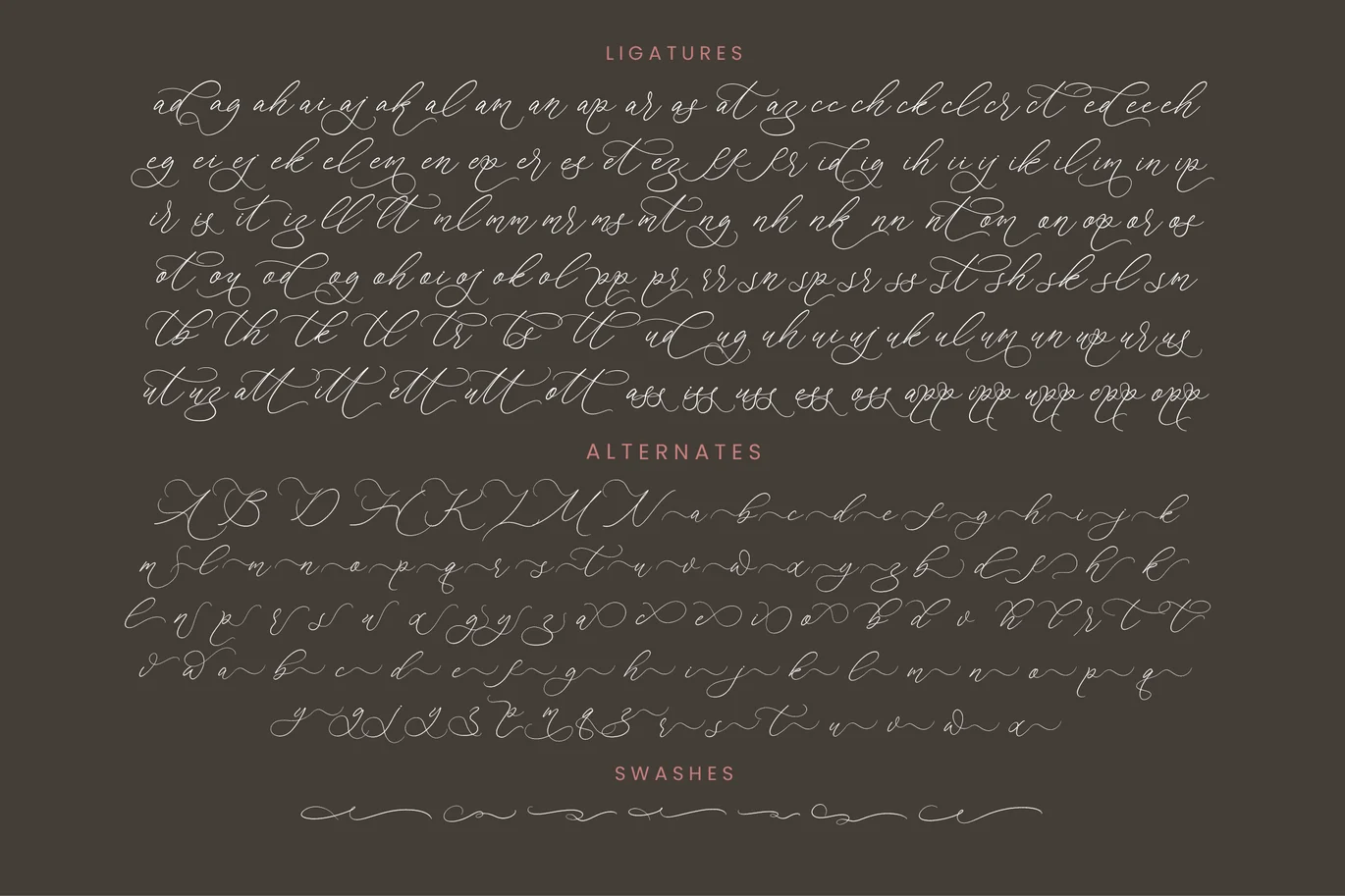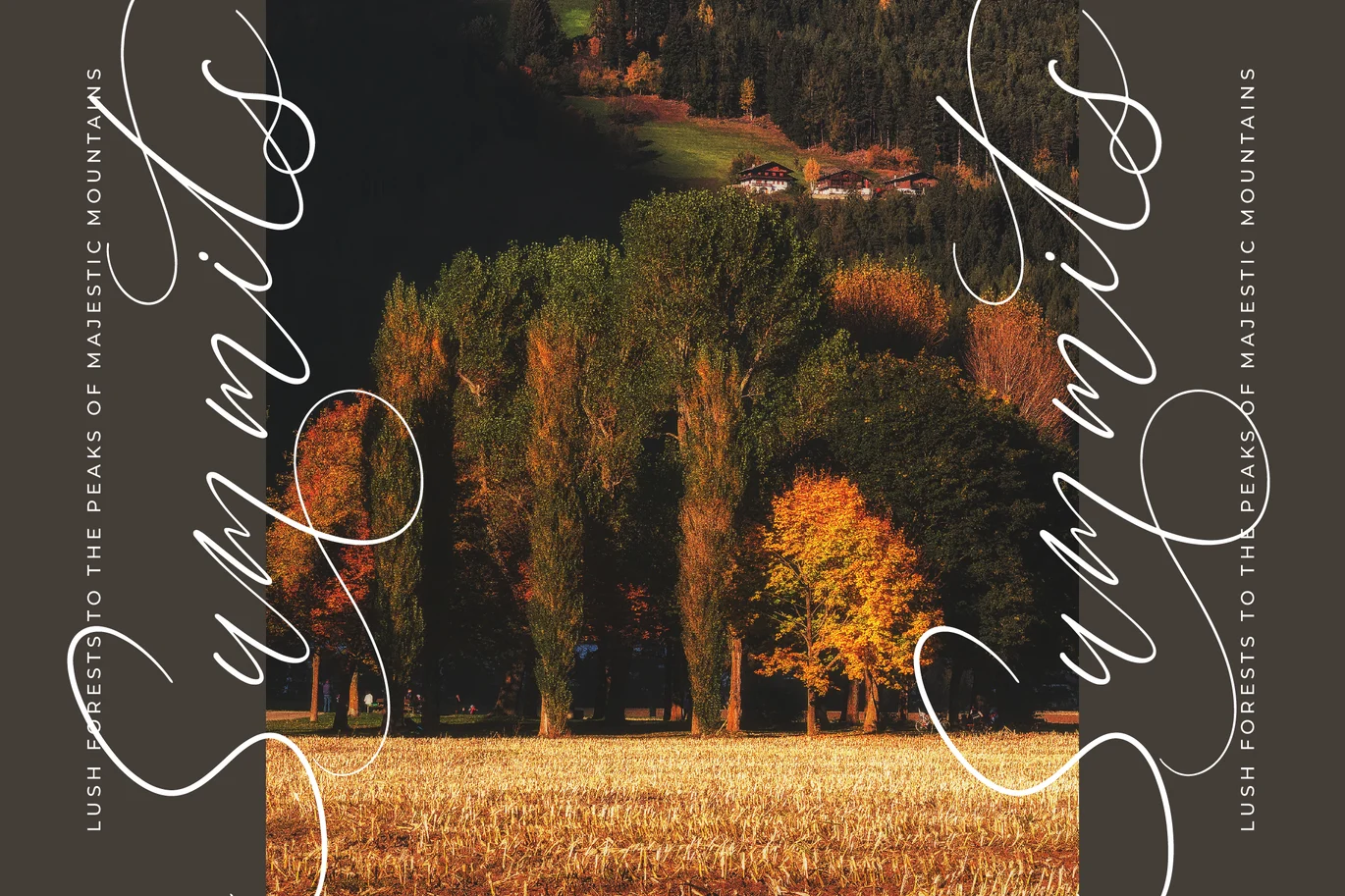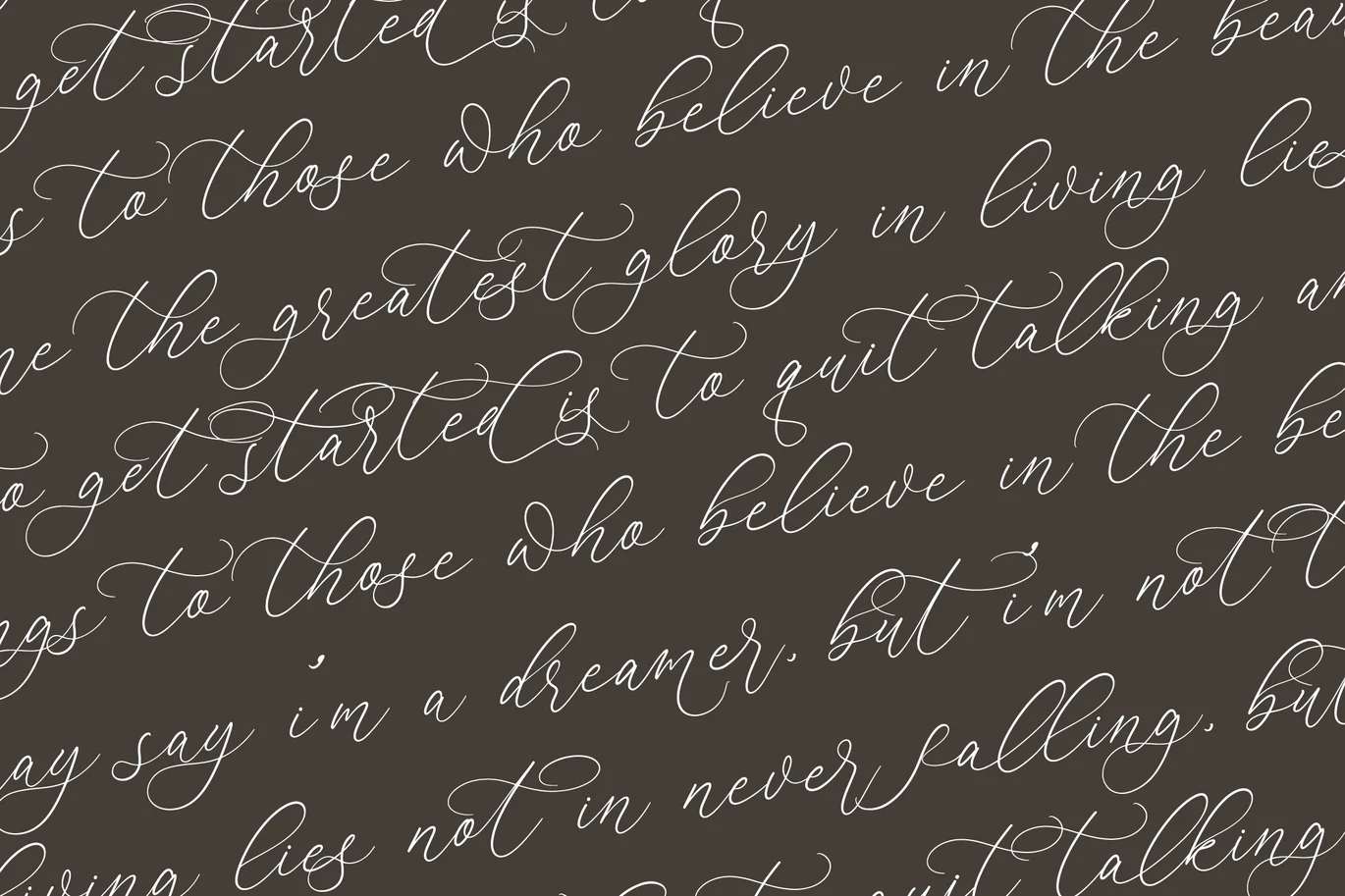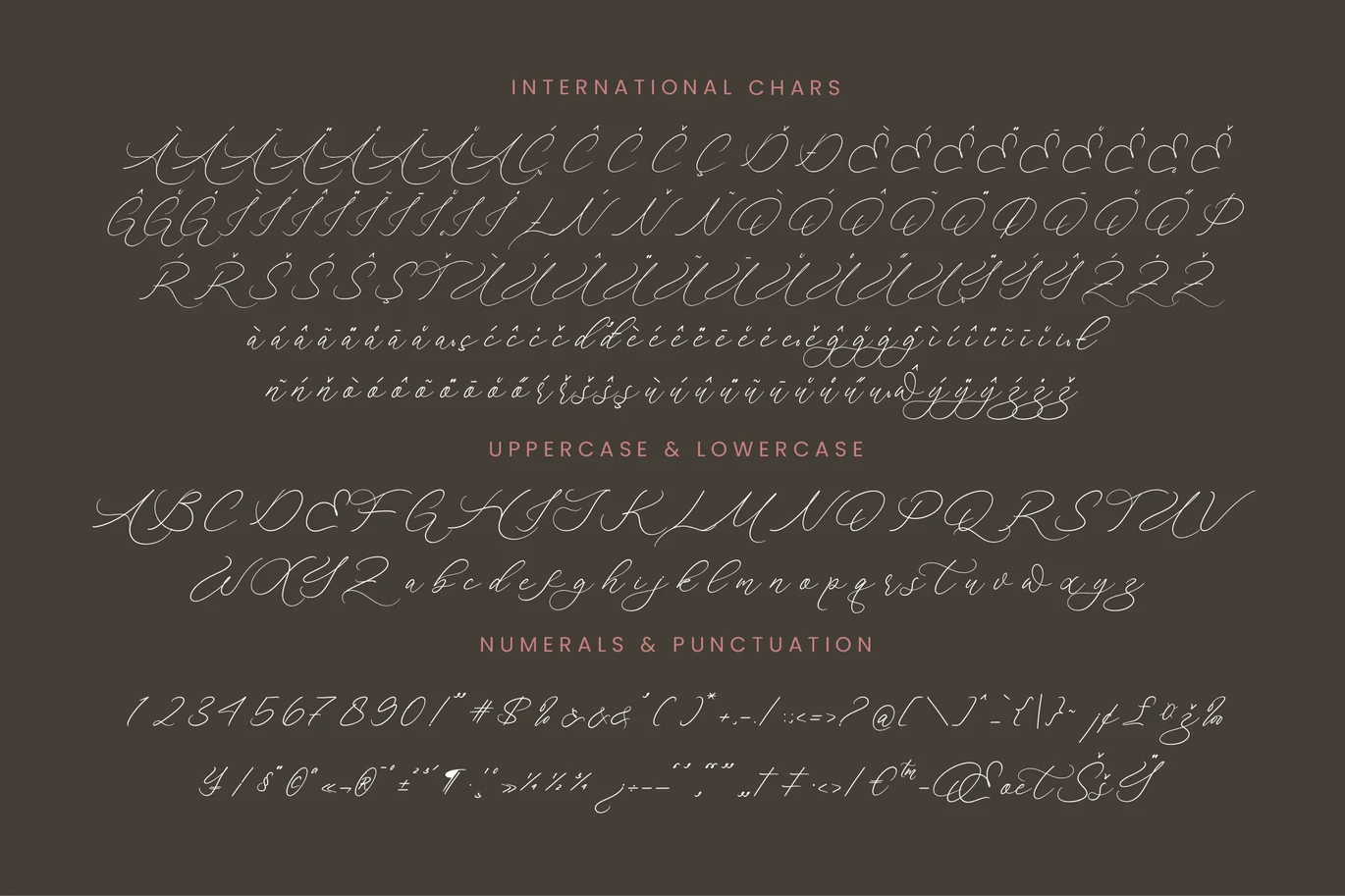
Anchesty Montaine – Stylish Calligraphy Font
Anchesty Montaine - Stylish Calligraphy Font is a breathtaking, high-contrast script that perfectly marries traditional penmanship with modern digital finesse. Its exquisite, thin strokes and sweeping connections create a genuinely personalized feel, making it the definitive choice for projects demanding an air of exclusive elegance. This font transcends mere typography; it is an expression of luxury, crafted for designers who refuse to compromise on polish and impact.